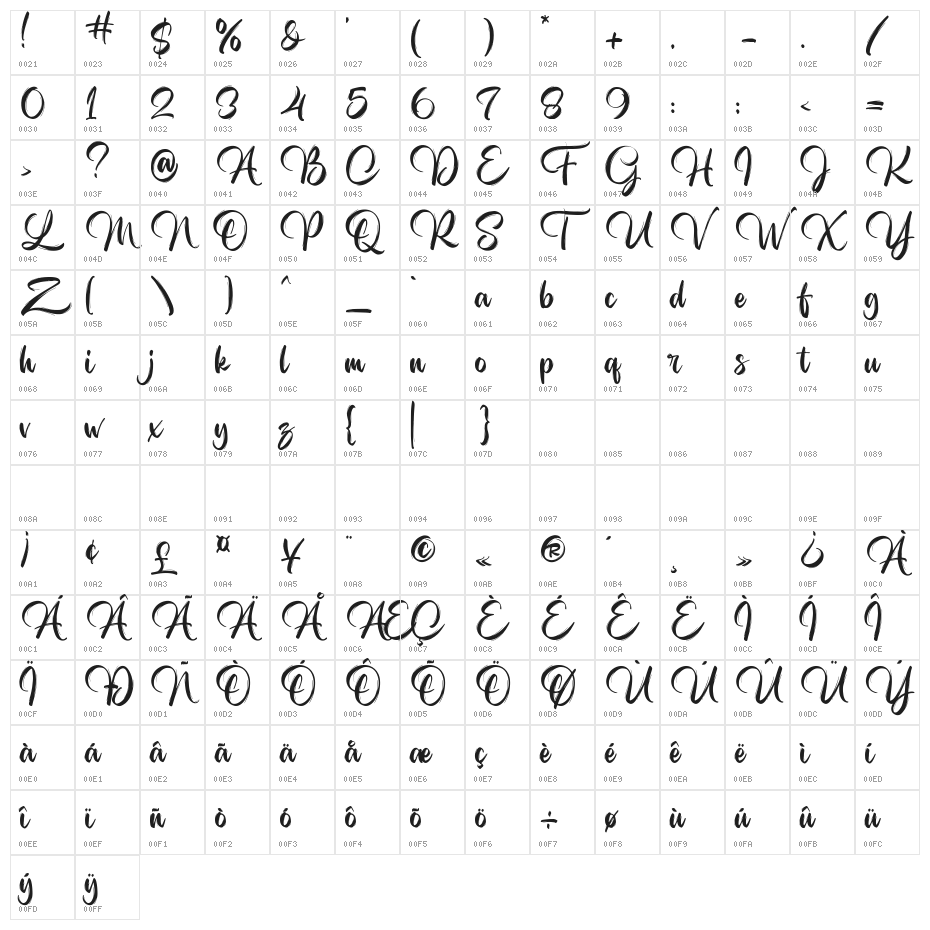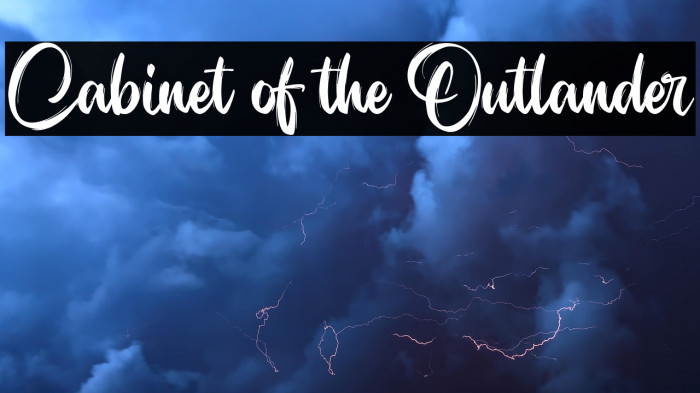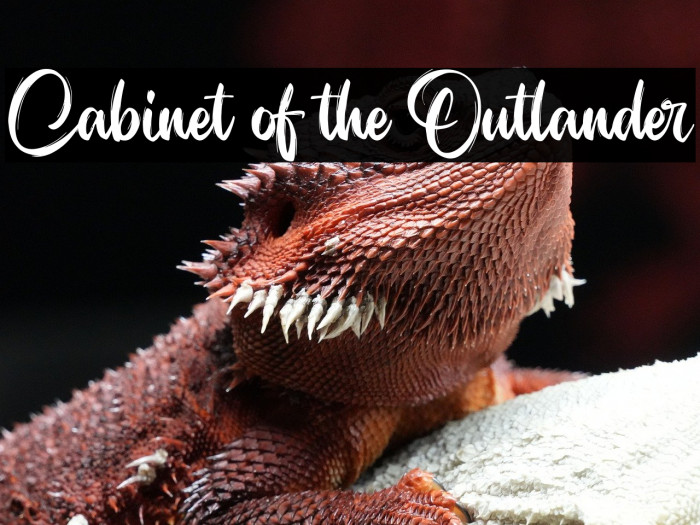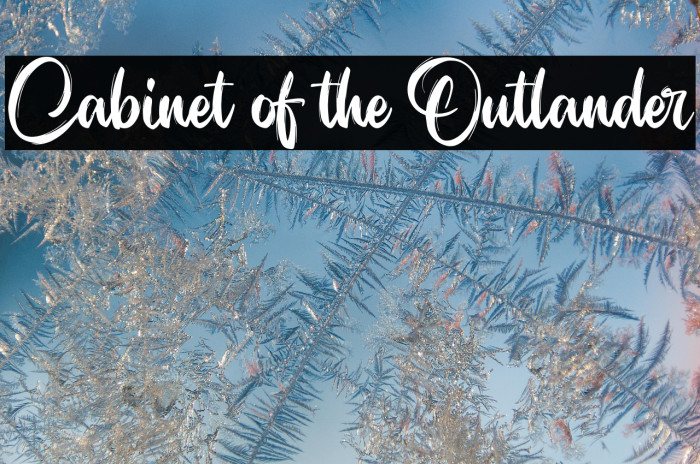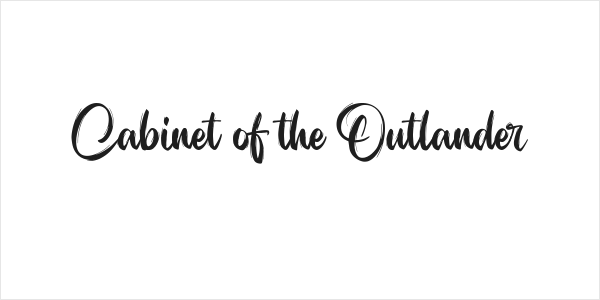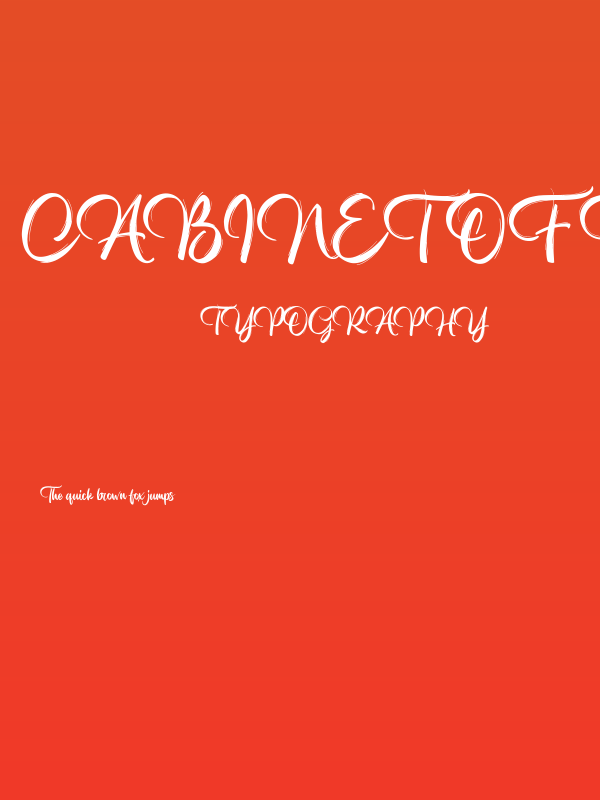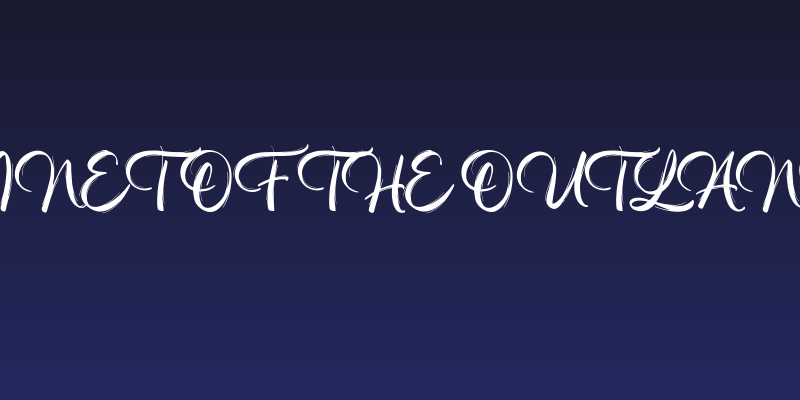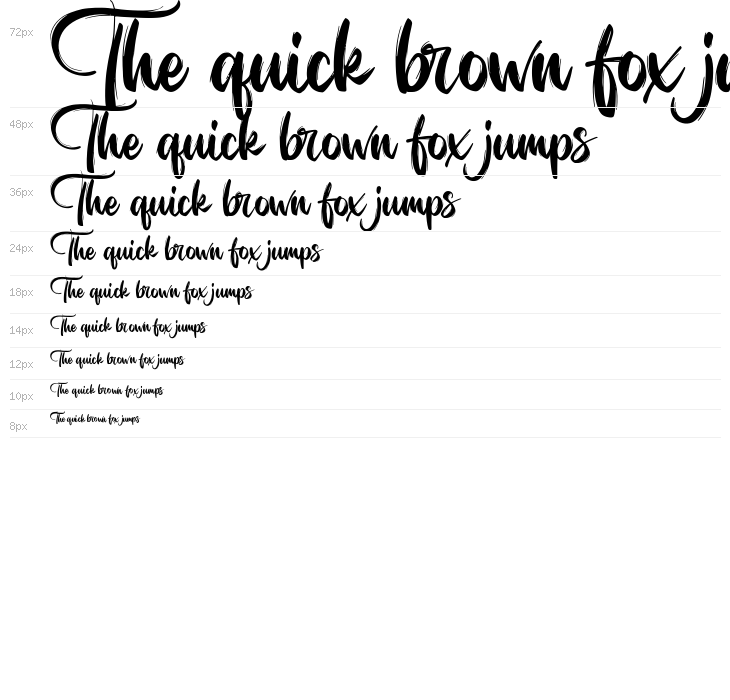
Cabinet of the Outlander Font
Cabinet of the Outlander Description
This font features a bold and expressive script style, characterized by its fluid, hand-drawn appearance. The letters are connected with sweeping strokes, giving it a dynamic and energetic feel. The uppercase letters are elegant and slightly larger than the lowercase, which are more compact and rounded. The numbers maintain the same lively style, ensuring consistency throughout. Special characters are designed with the same attention to detail, making them seamlessly integrate with the rest of the font. The overall look is both artistic and modern, perfect for projects that require a personal touch.